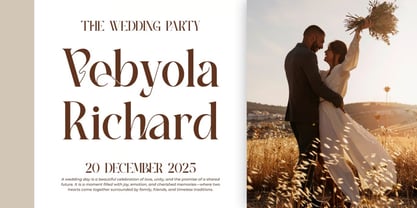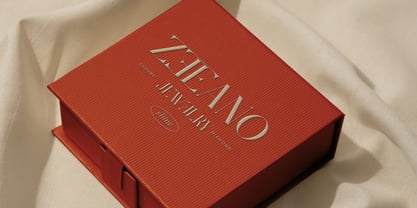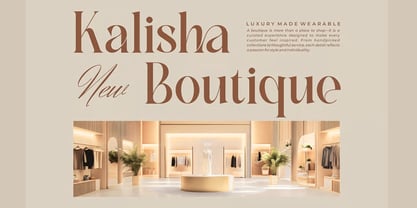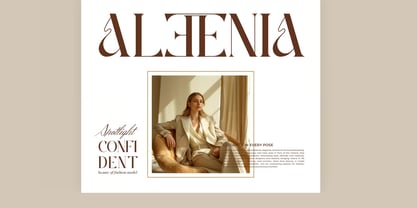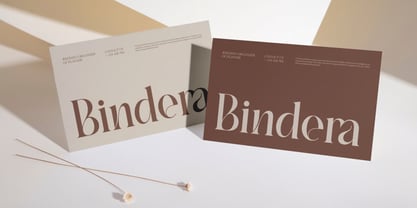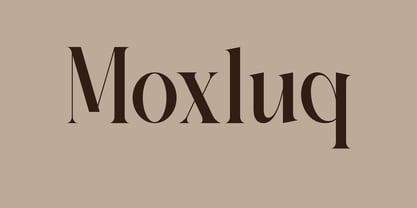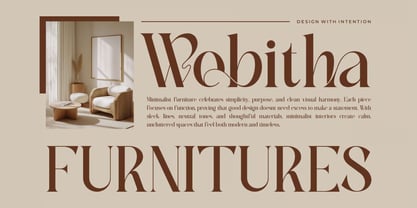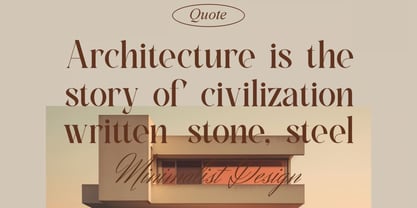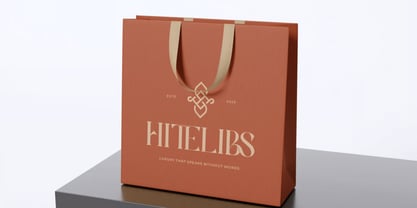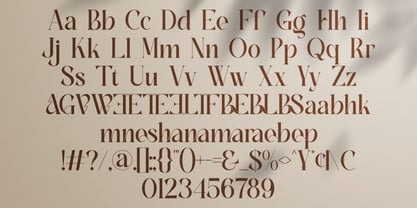
Moxluq
Moxluq is a modern and minimalist serif font crafted for designers who value elegance, simplicity, and timeless sophistication. Featuring clean letterforms, smooth curves, and beautifully designed ligatures, Moxluq offers a refined typographic style that enhances both contemporary and luxury-focused design projects.
With its balanced proportions and sleek aesthetic, Moxluq is the perfect choice for branding, logo design, invitations, business cards, book covers, movie titles, packaging, fashion branding, editorial layouts, and social media graphics. The font combines modern minimalism with classic serif beauty, creating a versatile typeface that feels both professional and stylish.
Designed to make a lasting impression, Moxluq helps brands communicate confidence, sophistication, and premium quality. Whether used for bold headlines or elegant wordmarks, this font brings a polished and memorable look to every project.
✿ Key Features:
• Modern Minimalist Serif Design: Clean, elegant, and timeless letterforms.
• Beautiful Ligatures: Stylish character combinations for seamless typography.
• Uppercase & Lowercase Letters: Complete alphabet for versatile design applications.
• Numbers & Punctuation: Professional character set for all creative needs.
• Smooth & Sophisticated Appearance: Perfect balance between luxury and simplicity.
• High-Quality Typography: Carefully crafted for both print and digital projects.
• Professional Design Standards: Ideal for branding, publishing, and marketing materials.
✿ Perfect For:
• Branding & Logo Design: Create modern, memorable, and premium brand identities.
• Luxury & Fashion Branding: Perfect for high-end products and elegant businesses.
• Invitation & Wedding Designs: Add sophistication to special occasions.
• Movie Titles & Book Covers: Create captivating and stylish typography.
• Business Cards & Corporate Identity: Enhance professionalism and brand recognition.
• Editorial & Magazine Layouts: Ideal for headlines, titles, and feature content.
• Packaging & Product Labels: Bring elegance to beauty, fashion, and lifestyle brands.
• Social Media & Advertising: Design eye-catching promotional materials with ease.
Elevate your creative work with Moxluq—a modern minimalist serif font that combines luxury, elegance, and versatility. Perfect for branding, logos, editorial design, invitations, packaging, and premium visual identities, Moxluq delivers timeless beauty with a contemporary edge.